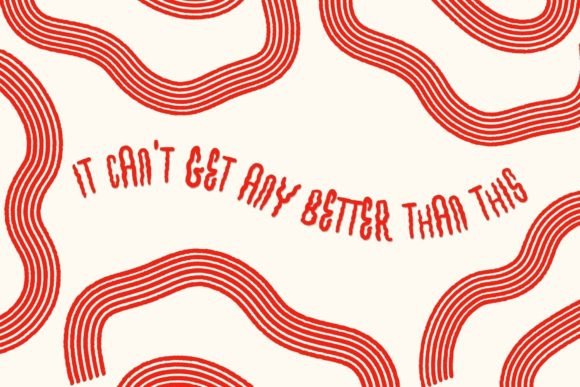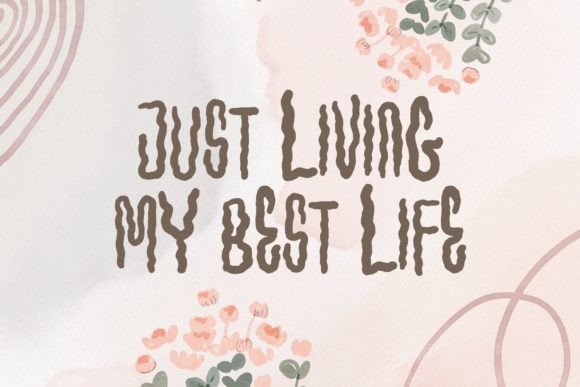
When Words Demand Attention
You’re in the middle of a brainstorming session, surrounded by scribbled notes and half-baked ideas. Suddenly, a phrase catches your eye – bold, striking, and impossible to ignore. You know exactly what it needs: a font that can match its intensity. That’s where the Avoid Font comes in – a sans-serif powerhouse that turns heads and makes a statement.
With its thick, powerful strokes and striking letterforms, the Avoid Font is perfect for designers who want to convey strength, confidence, and a sense of modernity. Whether you’re working on a headline, poster, or branding project, this font is sure to make an impact. Its versatility and bold personality make it a valuable addition to any designer’s toolkit, allowing them to create truly unforgettable designs that leave a lasting impression.
Key Features of “Avoid Font”
- Font Styles: Includes a wide range of font styles, including bold, italic, and bold-italic, to enhance text visual appeal.
- Language Support: Supports multiple languages, including Latin, Cyrillic, and Asian character sets, making it a versatile font option.
- Font Weight: Offers adjustable font weight, allowing users to customize the text’s visual density and impact.
Designer Review: Avoid Font
Overall, I think Avoid Font has some interesting aspects, but it falls short in several areas.
- Unique Design: Avoid Font has a distinctive, sans-serif design that could work well for projects that need a modern, edgy feel.
- High Contrast: The font’s high contrast between thick and thin lines makes it easy to read at various sizes.
- Customization Options: The font’s creator offers a range of customization options, including bold and italic styles.
- Limited Character Set: Avoid Font only supports a limited set of characters, which could be a problem for projects that require a wide range of languages or special characters.
- Not Ideal for Body Text: The font’s irregular line spacing and letterforms make it less suitable for large blocks of body text.
- Lack of Legibility: At smaller sizes, the font can become difficult to read due to its irregularities.
Overall, I’d say Avoid Font is a good choice for projects that require a bold, eye-catching font, but it may not be the best option for body text or projects that require a wide range of languages or special characters.
Tips for Getting the Most Out of “Avoid Font”
Use “Avoid Font” to add a touch of uniqueness to your designs.
Combine “Avoid Font” with other design elements to create a cohesive look.
Use “Avoid Font” for:
1. Headings and titles
2. Body text
3. Quotes and testimonials
Alternatives to “Avoid Font” for Designers
Open Sans is a popular sans-serif font that is clean, modern, and highly legible. It is suitable for body text and headings and works well in a variety of contexts. Open Sans is a good alternative to “Avoid Font” when you need a clean and simple font that is easy to read.
Comparison to “Avoid Font”: Open Sans is more legible and has a more modern feel than “Avoid Font”. It is also more versatile and can be used in a wider range of contexts.
Lato is a sans-serif font that is designed to be highly legible and versatile. It has a clean and modern feel that makes it suitable for a wide range of applications, from body text to headings. Lato is a good alternative to “Avoid Font” when you need a font that is both modern and easy to read.